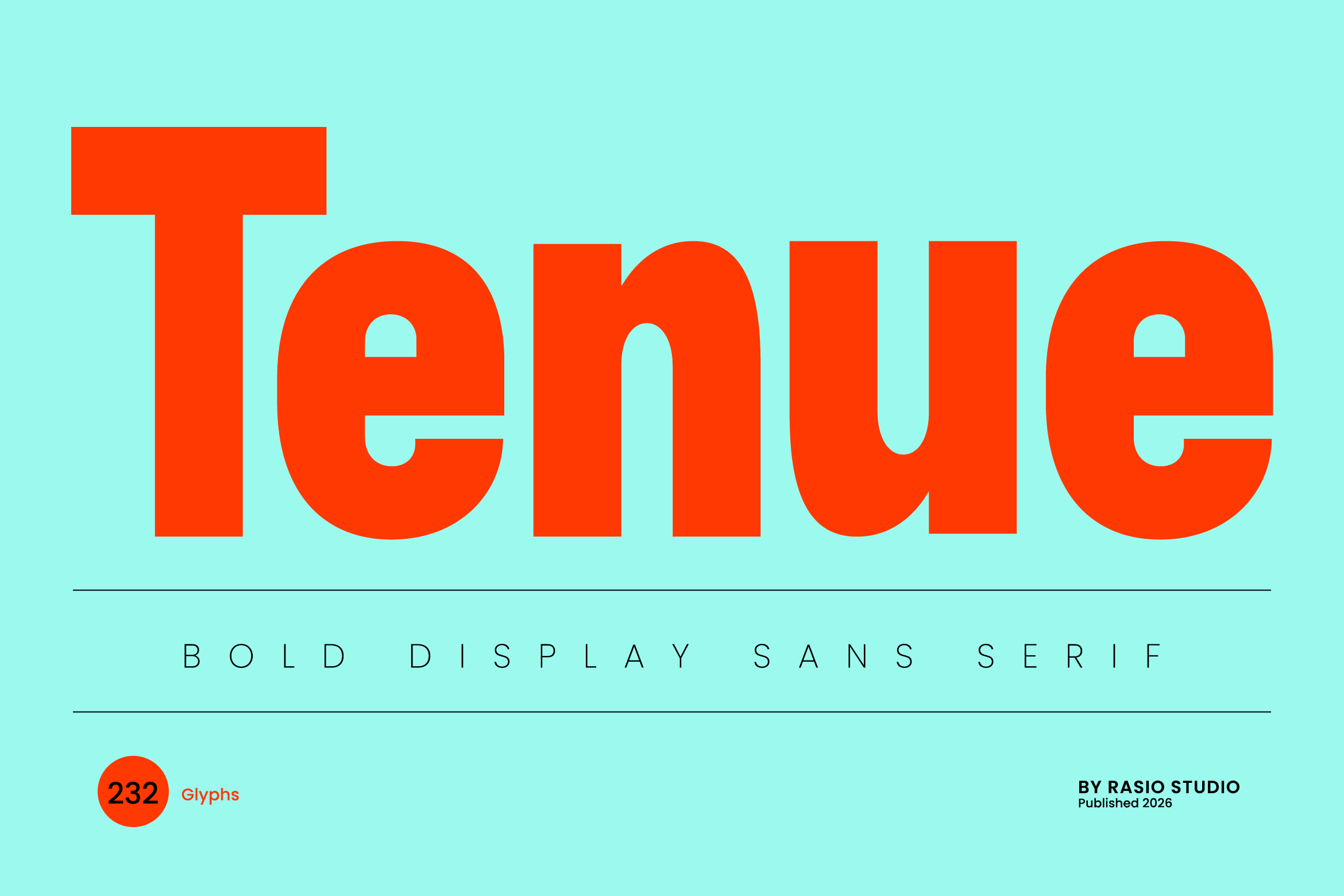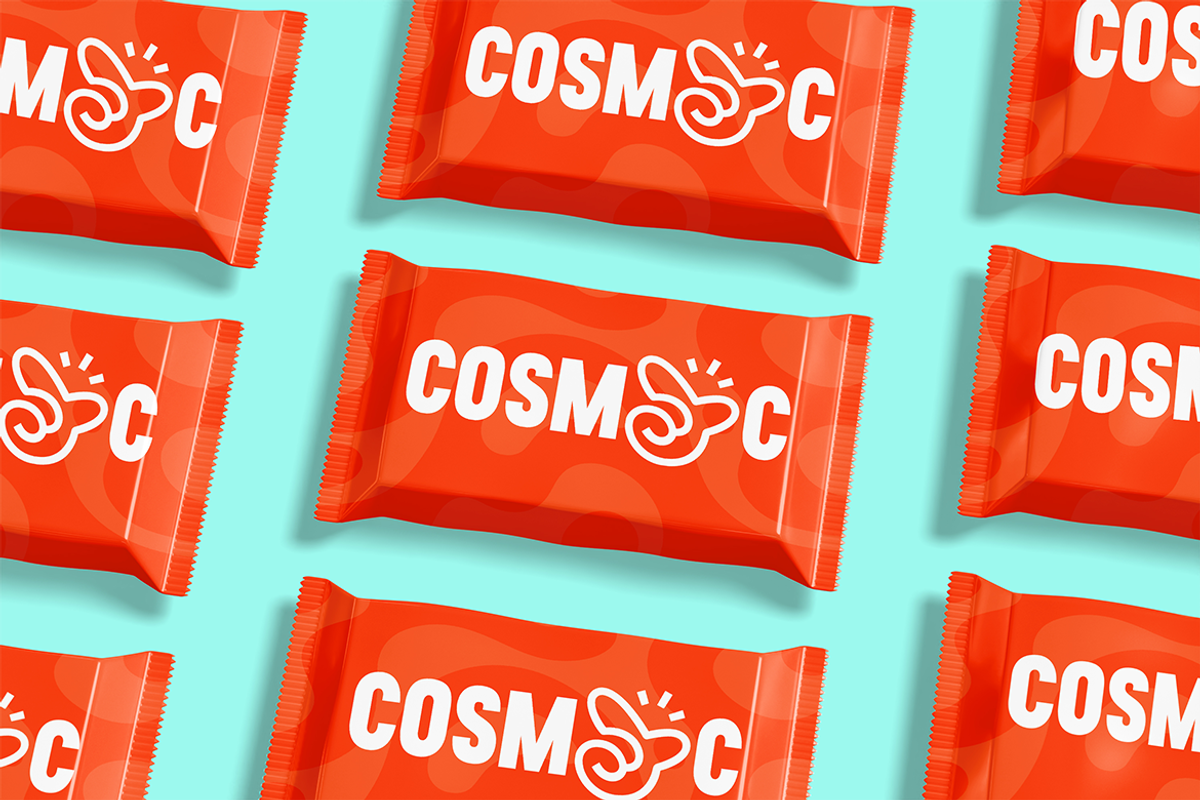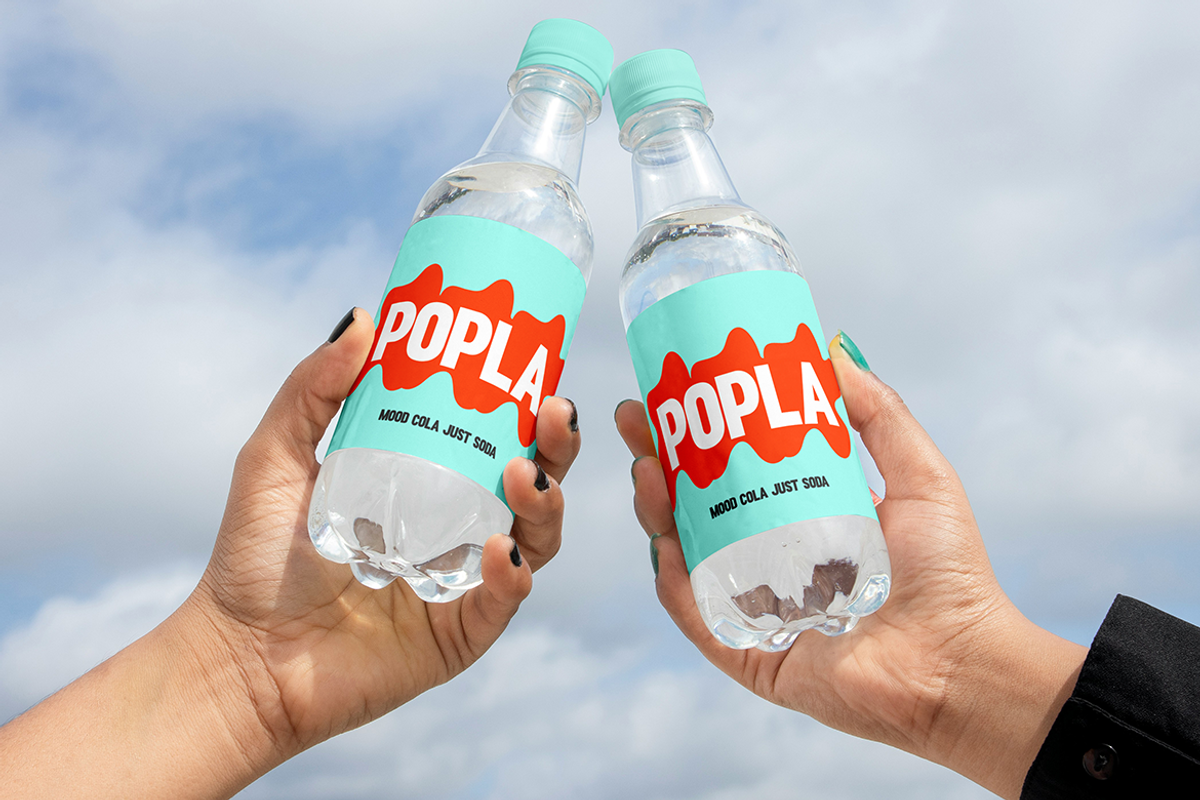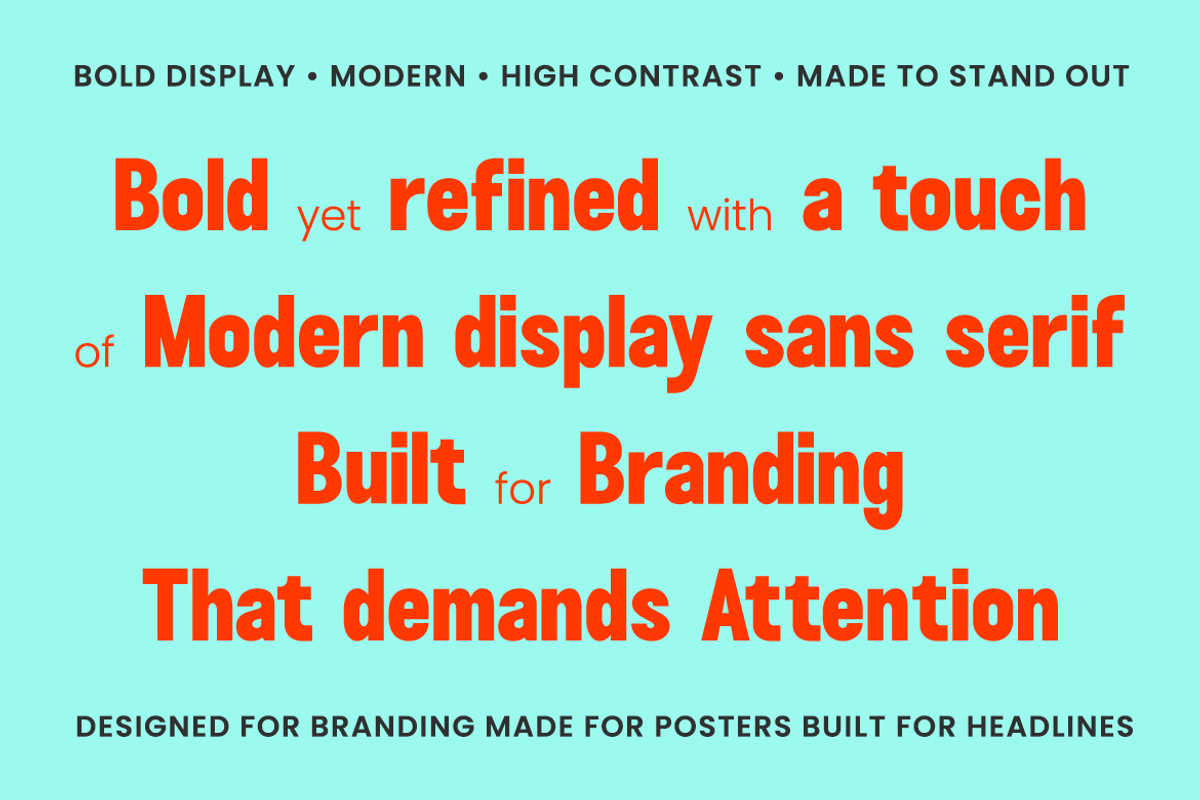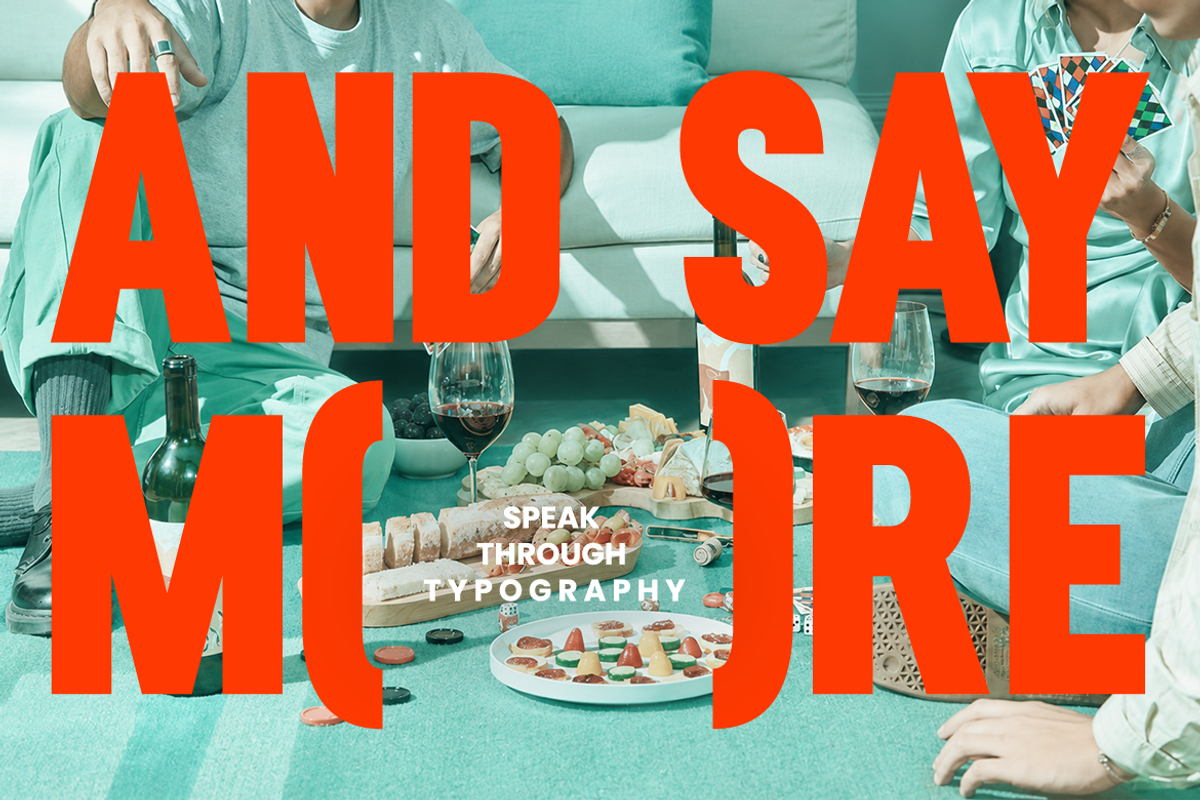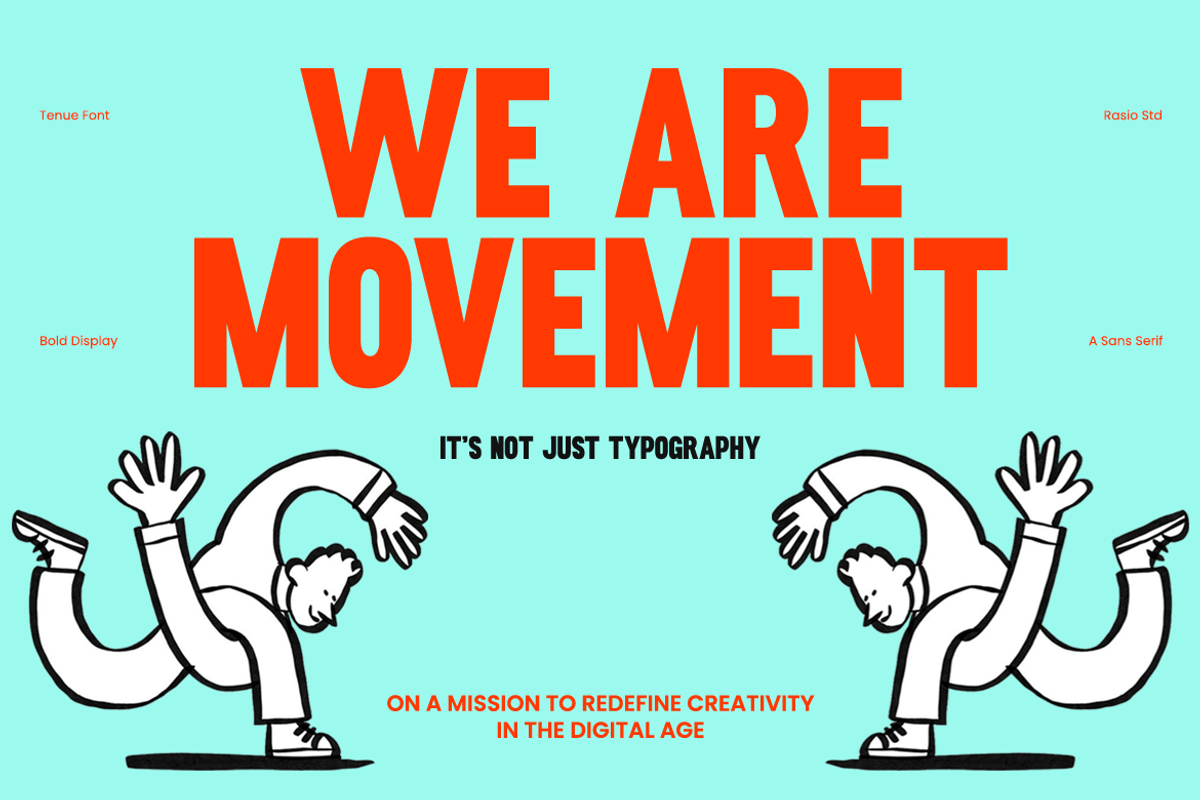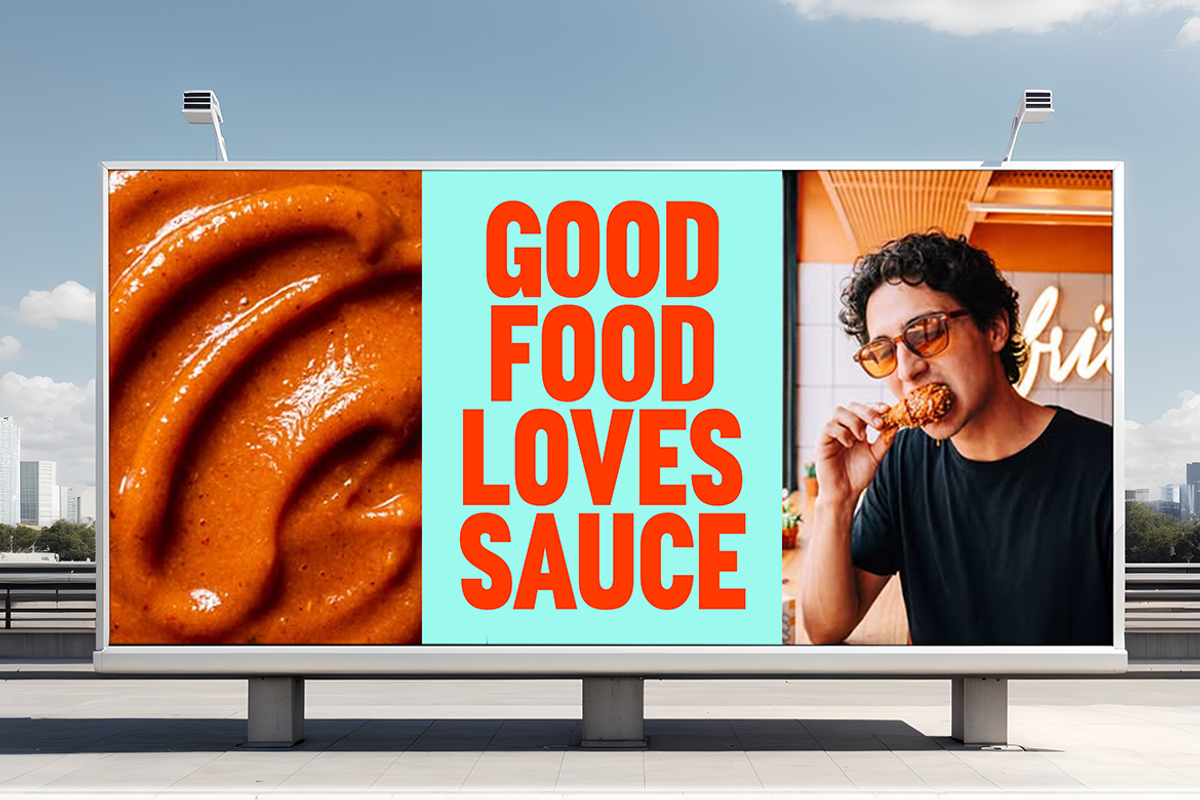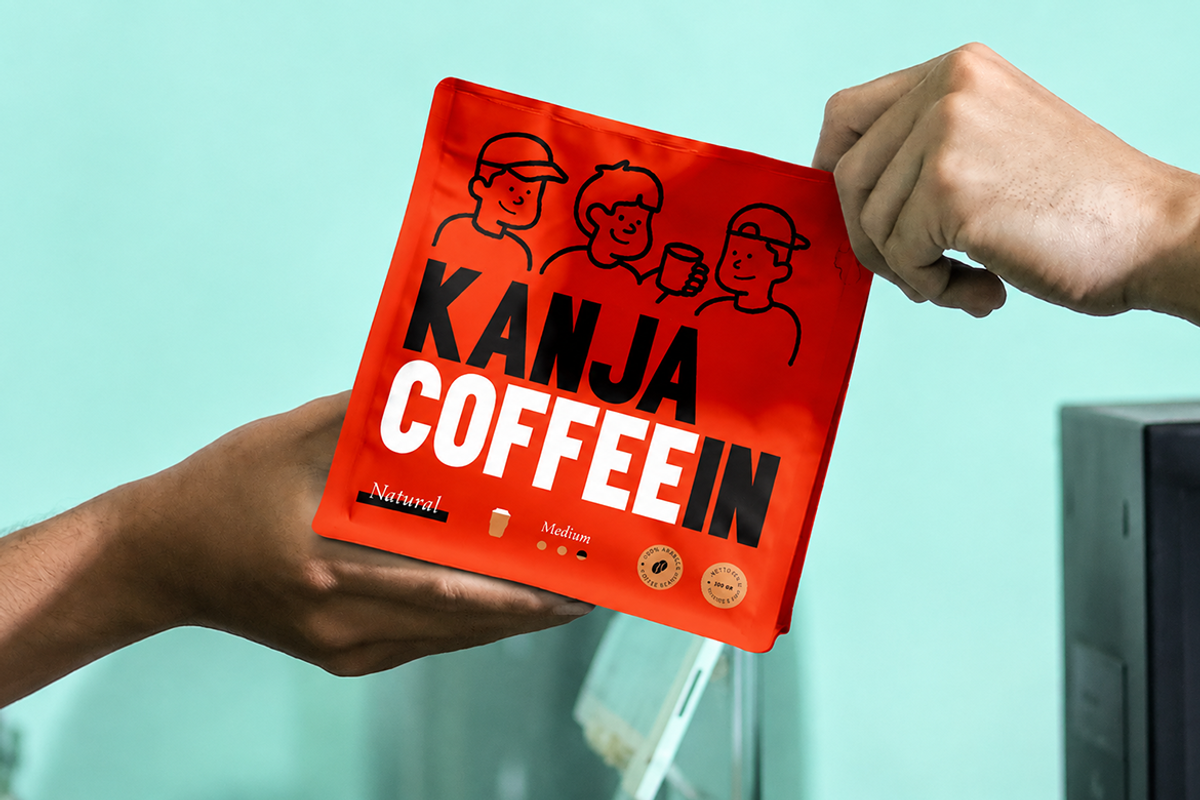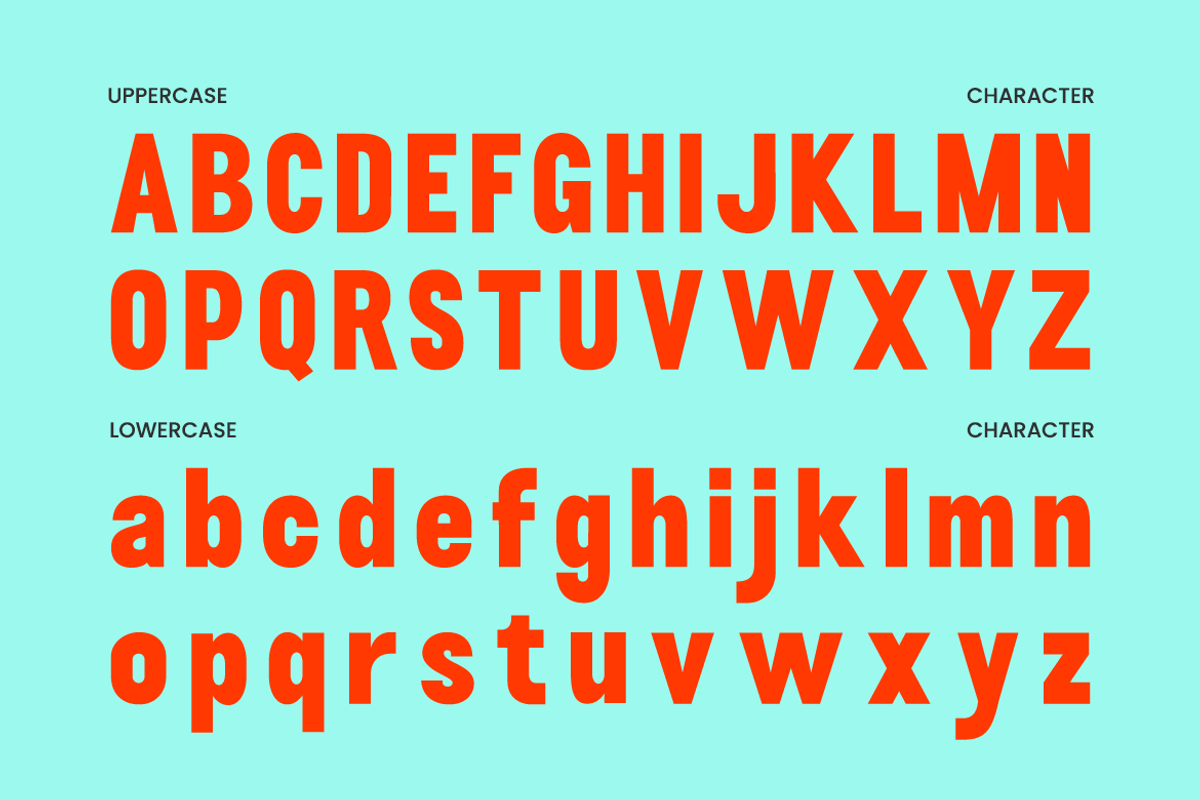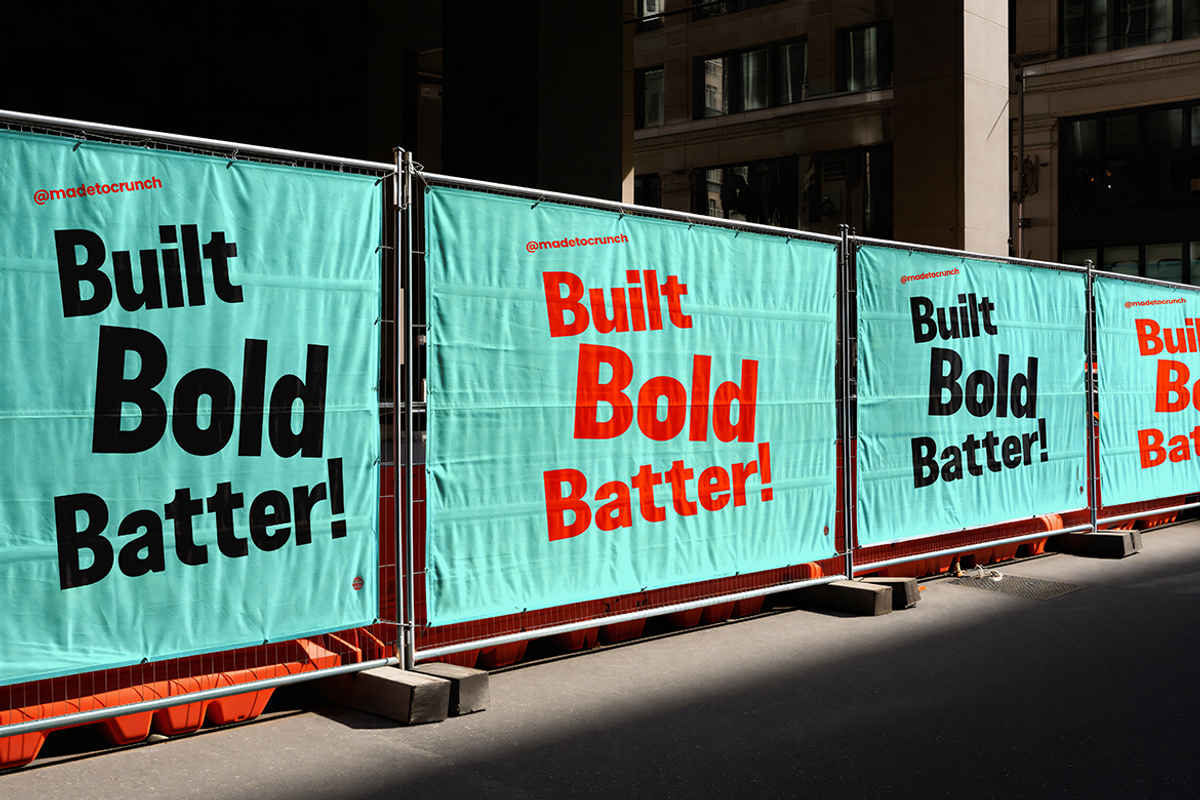
Tenue Bold Display Sans Serif Font
Tenue Bold Display Sans Serif Font is a bold display sans serif typeface designed around strong proportions, compact character forms, and a confident visual presence. The uppercase alphabet features substantial strokes and geometric construction, while the lowercase characters introduce a slightly softer rhythm that keeps large-scale lettering visually engaging. Its straightforward structure gives headlines a clean, assertive appearance without relying on decorative details, making the typeface especially effective when typography needs to dominate the composition.
Tenue is relevant to projects where typography needs to establish an immediate visual statement through weight, scale, and uncomplicated construction. Its bold proportions make it particularly effective for poster headlines, advertising campaigns, event graphics, editorial covers, album artwork, streetwear graphics, product packaging, signage, promotional banners, social media artwork, and contemporary brand identities. The uppercase characters can create especially strong all-caps compositions, while the lowercase set provides additional flexibility for supporting phrases, secondary headlines, and mixed-case layouts. Its solid silhouette also works well when lettering needs to remain visually prominent against photographs, illustrations, vibrant backgrounds, or simple color fields.
Bold display construction with a strong geometric presence
Heavy letterforms designed to create immediate visual impact
Clean, compact proportions that give headlines a powerful silhouette
Simple terminals and controlled curves for a crisp contemporary character
Distinctive lowercase forms that add personality without losing readability
Brand identities needing bold, confident typography
Posters and campaigns with large, attention-grabbing headlines
Editorial covers for magazines, lookbooks, and creative publications
Packaging and labels with a strong contemporary character
Social media graphics requiring expressive headline typography
Supports numerals, punctuation, and extensive symbol set